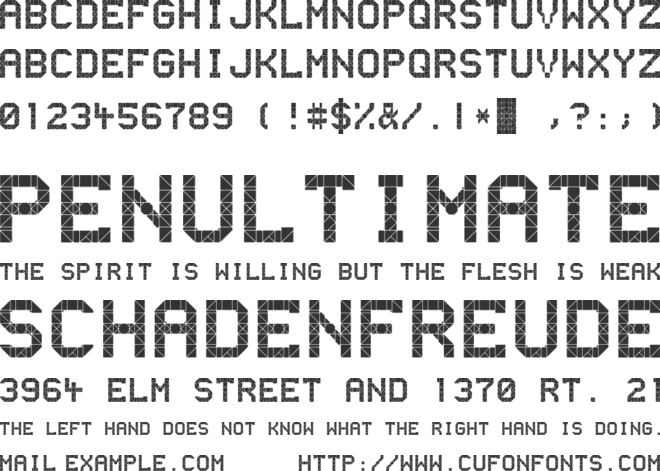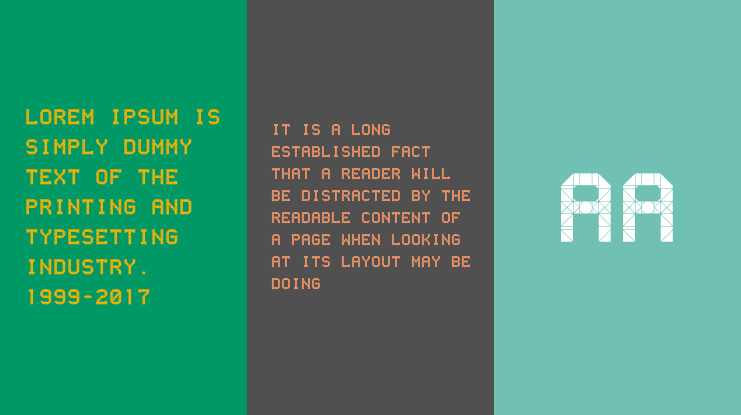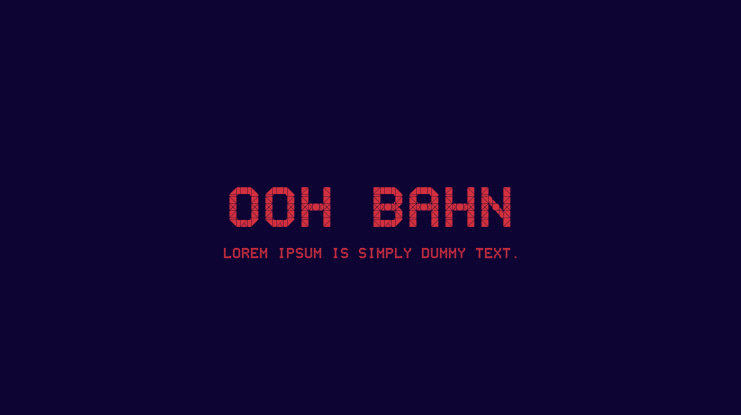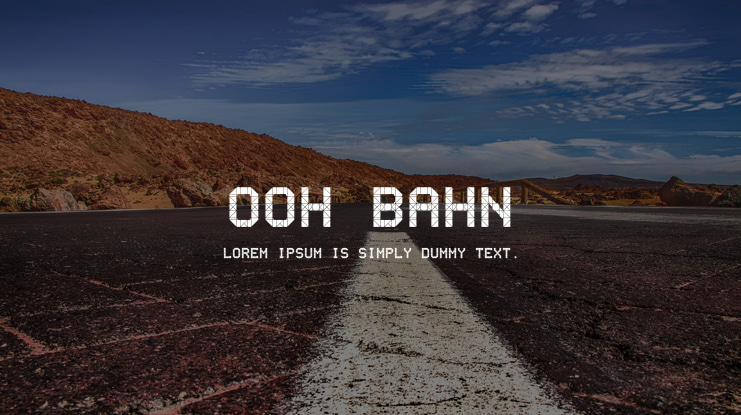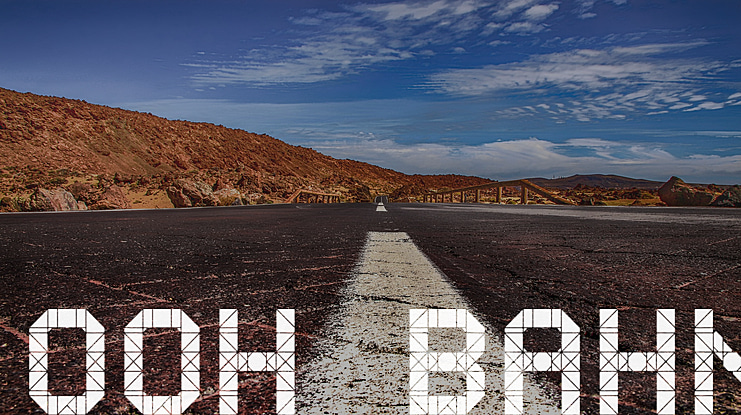
Ooh Bahn Font
oohbahn is a technical, monospaced typeface inspired by Vienna metro signage made by www.lux-lab.at in Vienna, Austria. Retro & futuristic. Enjoy!